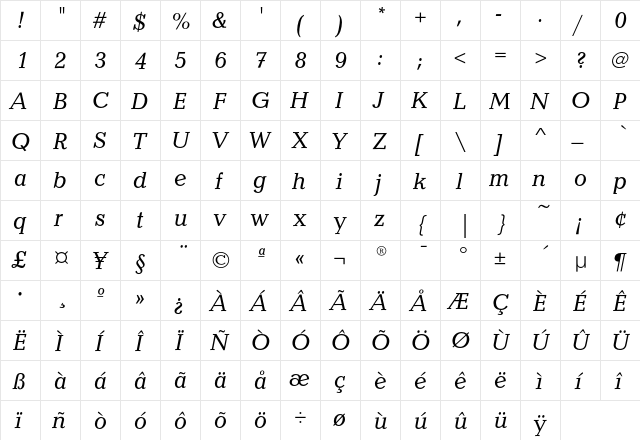
CandidaEF RegularItalic
Design Context for CandidaEF Typeface
CandidaEF offers clean, dependable letterforms without strong stylistic allegiance, making it a practical choice for designers who need flexibility. The slanted form adds forward momentum and visual energy.
Pro Tip: Try CandidaEF for annotation and caption copy alongside an upright companion — the contrast in angle creates a dynamic but ordered typographic system.